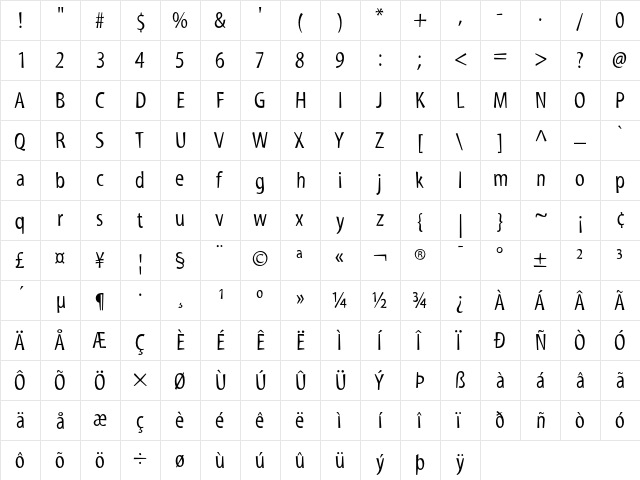
Myriad Tilt
Design Context for Myriad Typeface
Myriad takes a measured approach to typography — its balanced proportions and neutral character make it a reliable workhorse for both digital and print work.